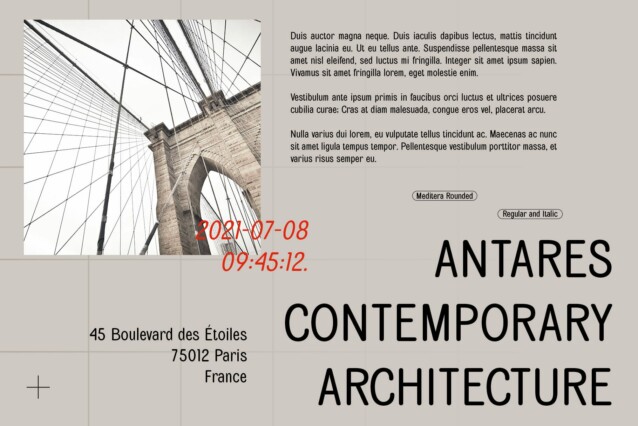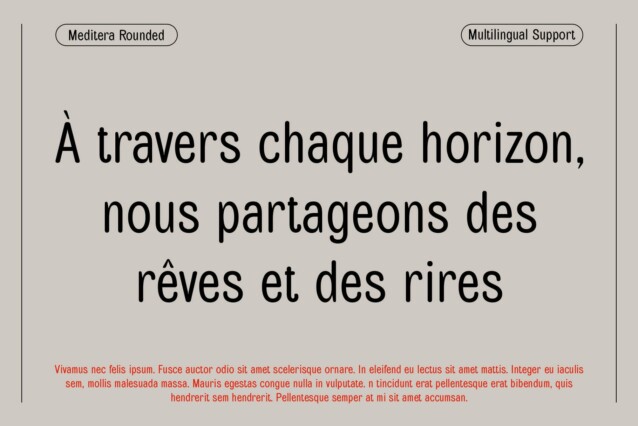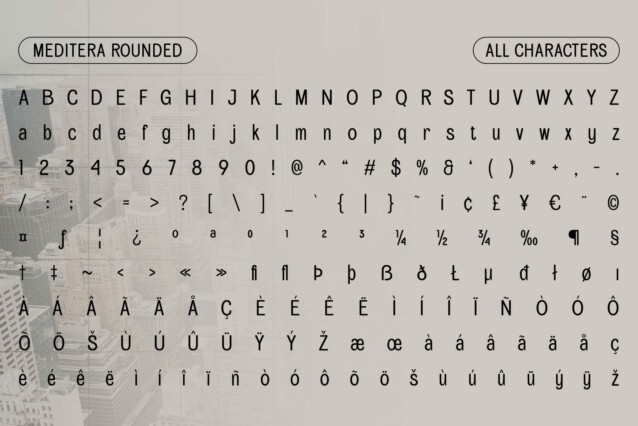
Meditera Rounded Font
Meditera Rounded Font is a modern sans serif font characterized by its condensed and rounded shapes. This unique combination of sleek and soft design elements creates a visually appealing aesthetic that stands out in any context. The condensed form maximizes space efficiency, making it perfect for applications where every inch counts, while the rounded corners evoke warmth and approachability.